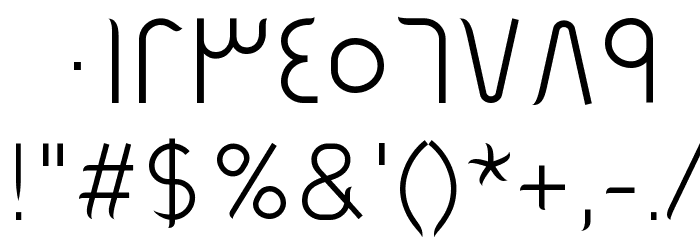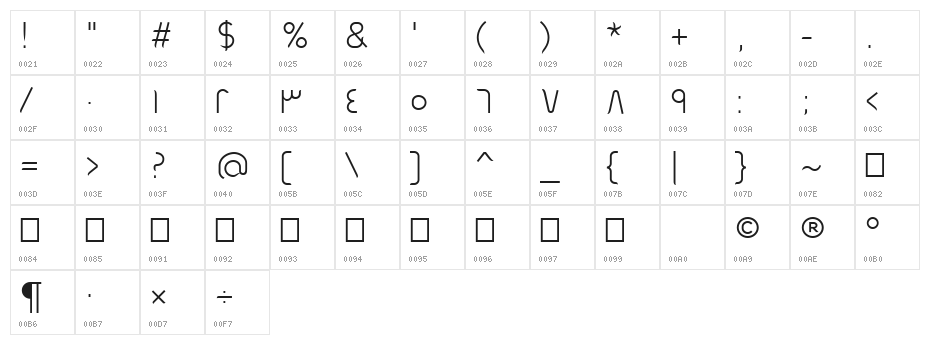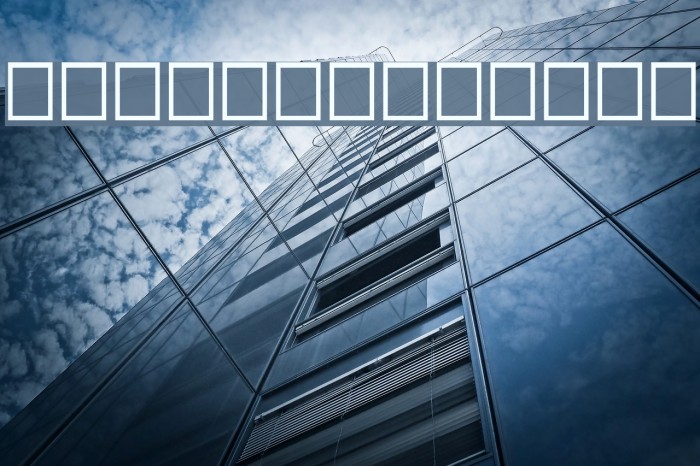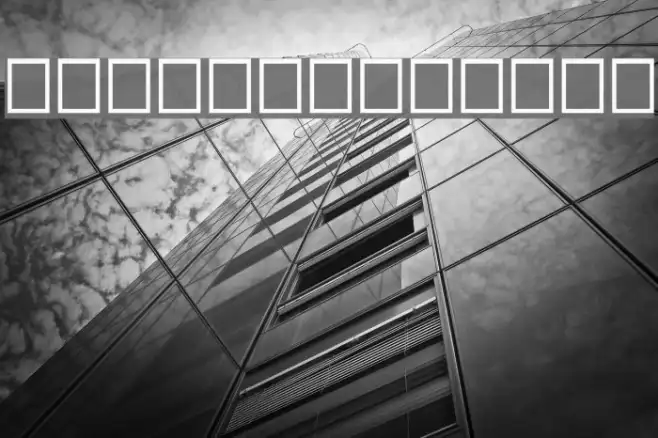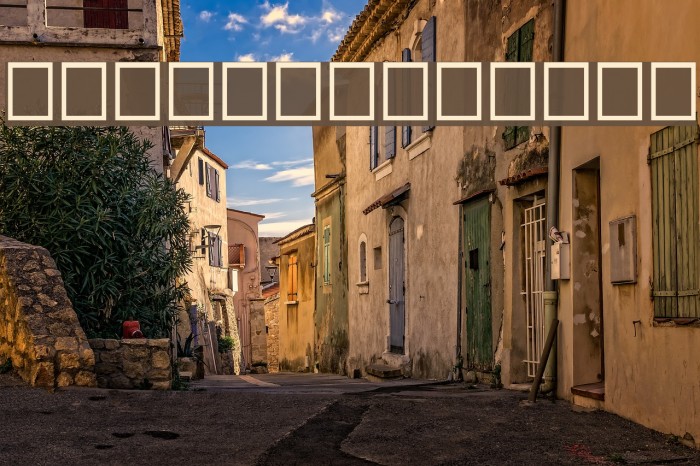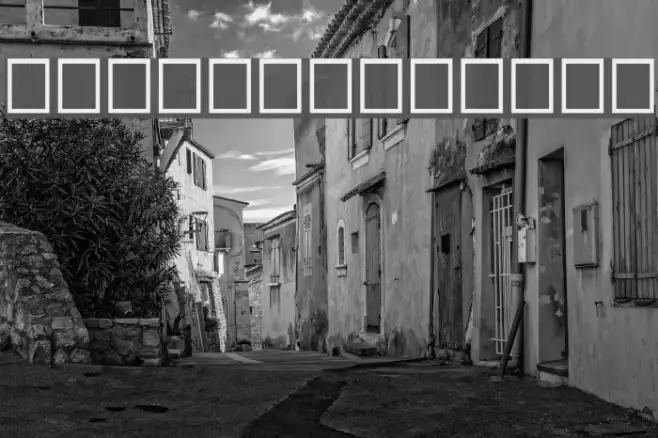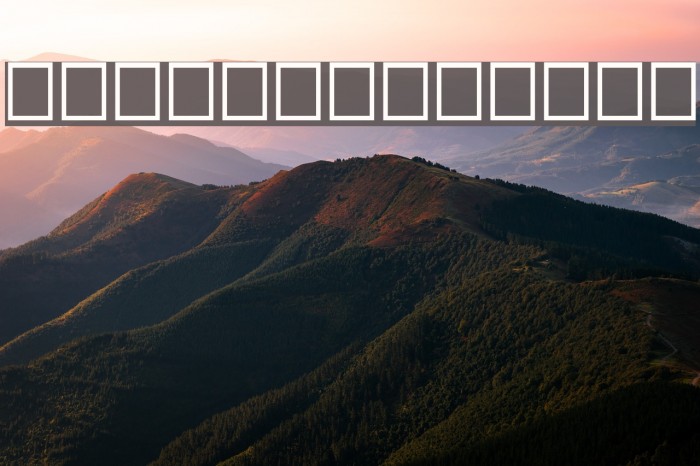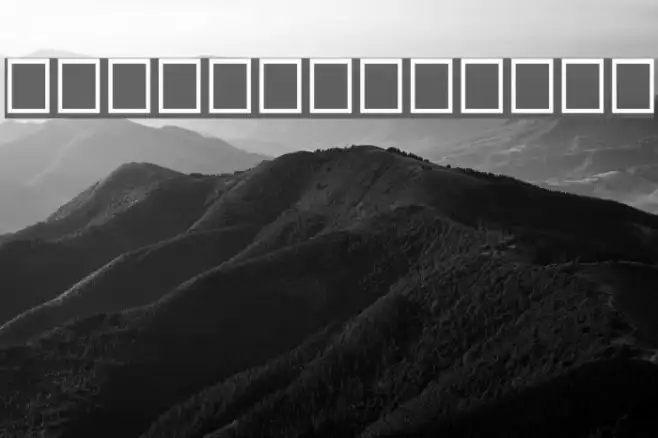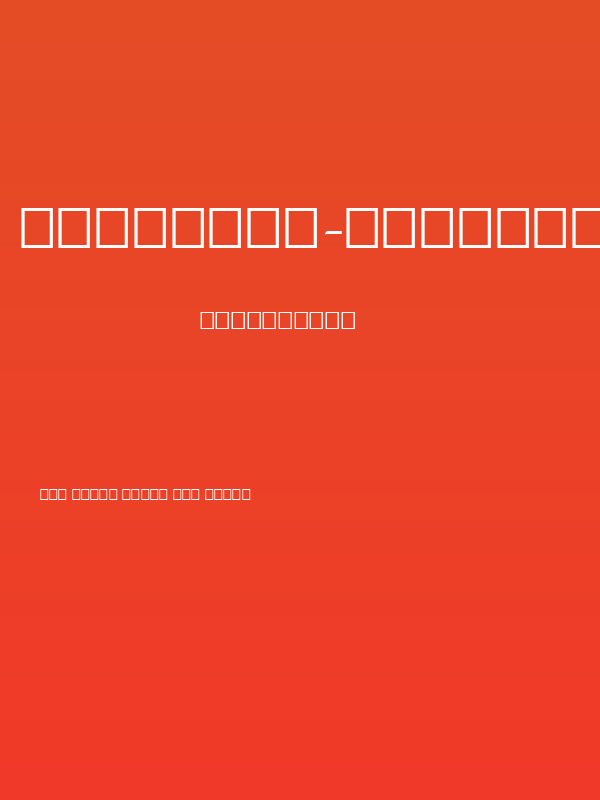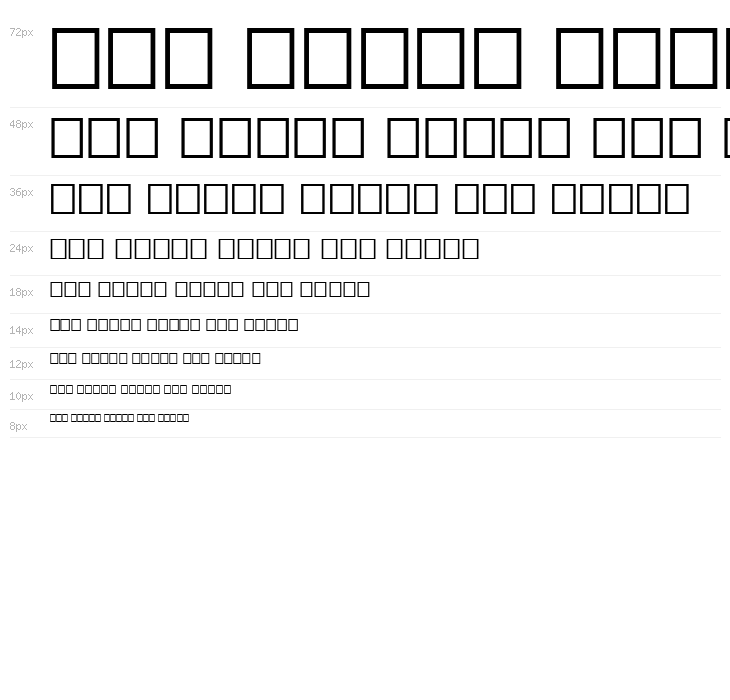
Mehrajan-Regular Font
Mehrajan-Regular Description
This font features a modern and clean design with a focus on simplicity and readability. The characters are well-balanced with a uniform stroke width, giving it a sleek and contemporary appearance. The numerals are distinct and easy to read, while the special characters are clearly defined, making it versatile for various uses. Its geometric shapes and smooth curves contribute to its modern aesthetic, making it suitable for digital and print media.